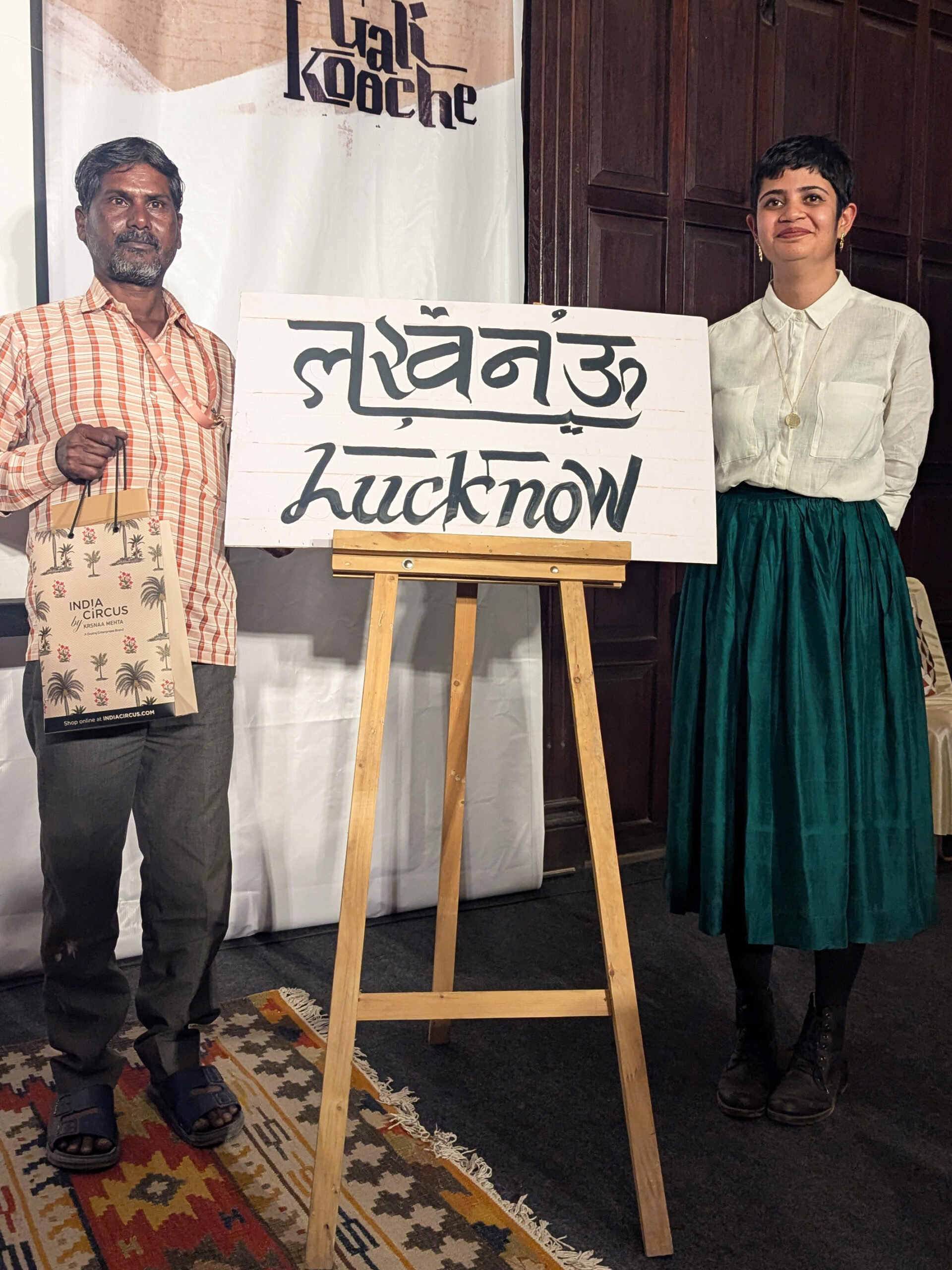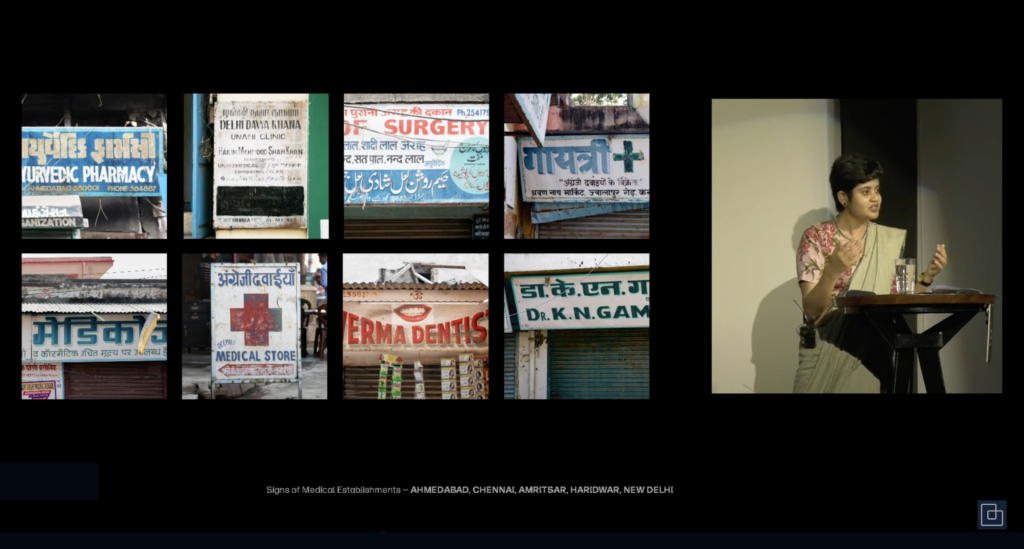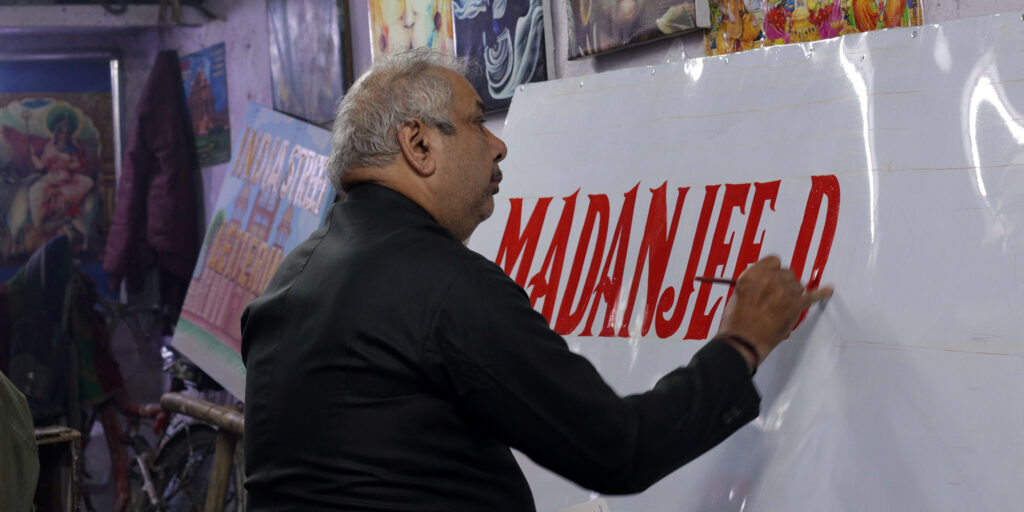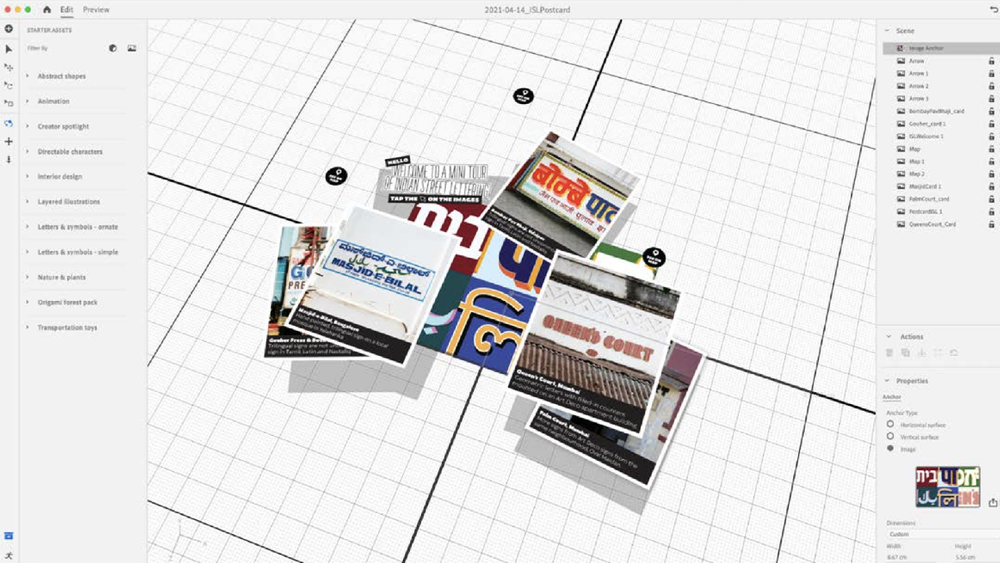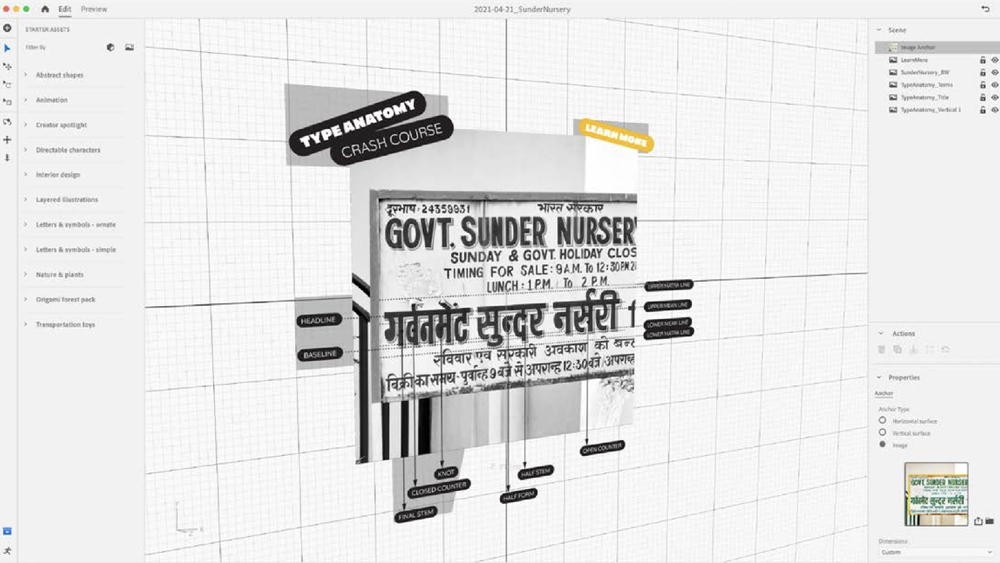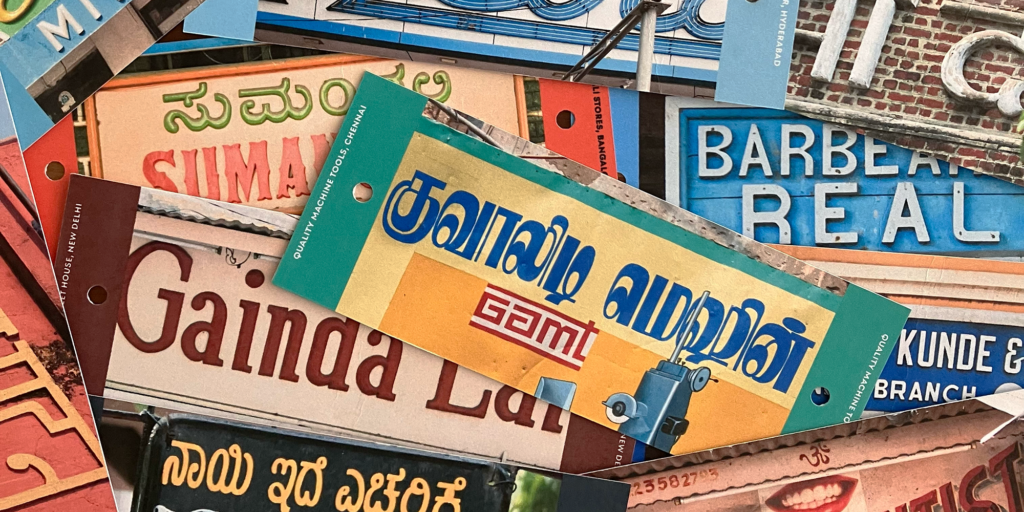
Designer as Documentarian
As a design practitioner whose work focuses on under-represented cultures and scripts, Pooja spoke about the need to don the additional hat of a documentarian to participate in the creation of design resources and archives needed to succeed as an individual and a community. Among the projects she highlighted was India Street Lettering, discussing what an asset it has been to her practice by teaching her to look beyond the confines of typographic expression that she learned in educational environments.
Street Lettering Show-and-Tell
For the staff at Monotype, Pooja put together a short talk outlining lessons for Indic typeface design that can be drawn from the works of local sign-makers in India. Challenging the conventions established by the Western design canon, she touched upon ideas of stylistic appropriateness, technological limitations and typographic niceties.
Her presentation was complemented with a display of books, zines and other materials about lettering and urban signage from around the world for the group’s perusal.
Ways of Seeing
At community-driven conversations during TypeLab Asia, Pooja gave a talk about India Street Lettering that emphasised that photographing street signs is only the first step in the making of this archive. She explained her work of annotating and geo-tagging the images she captures, and how that helps identify patterns and paradigms that inspire deeper engagement and research, which in turn form the bed rock of outreach activities like type walks and zines. Pooja also showcased physical pedagogical tools she is experimenting with, such as the manuscript-format zine pictured below, which offers an interactive way to engage with the archive in classroom environments.
In Pursuit of Typographic Cityscapes
For intermediate students of publication design at the Bangalore campus of the National Institute of Fashion Technology, Pooja facilitated a workshop centred on the documentation of street lettering, and the possibilities of storytelling that offers.
Armed with a brief introduction about the typographic environment of the neighbourhood, students first went on an exploratory type walk around Ulsoor. Once back in the classroom, they were introduced to different approaches they could take to organise the audio and visual content, as well as stories they had gathered. Working in groups, they brainstormed ideas to share the most remarkable observations they had made, and finally made prototypes for zines that tell different typographic stories from the area.